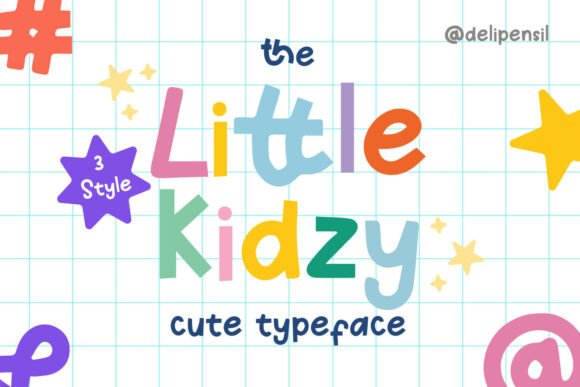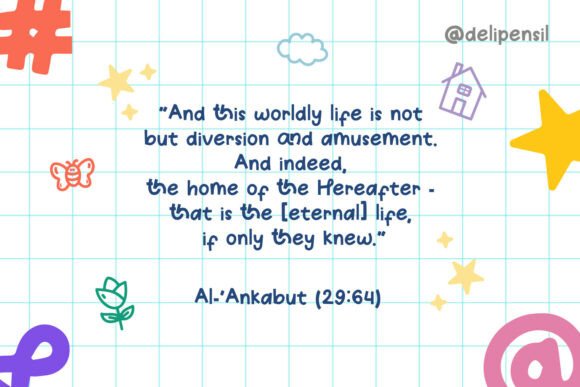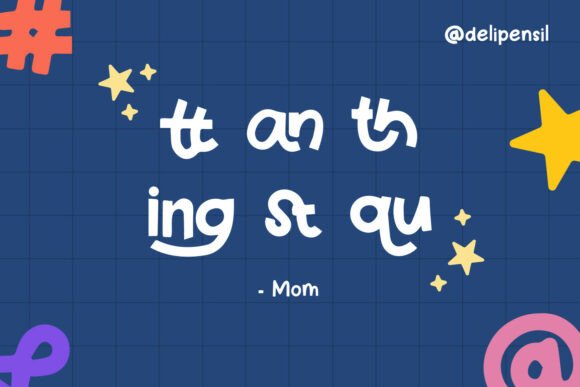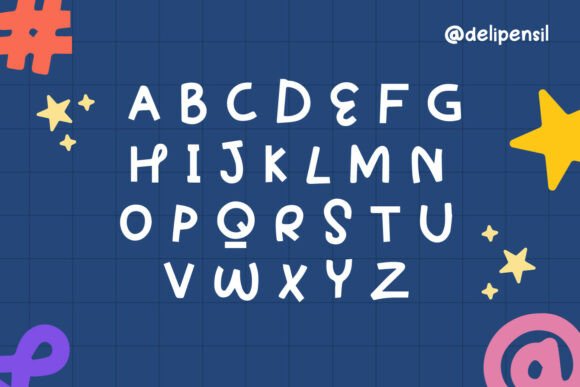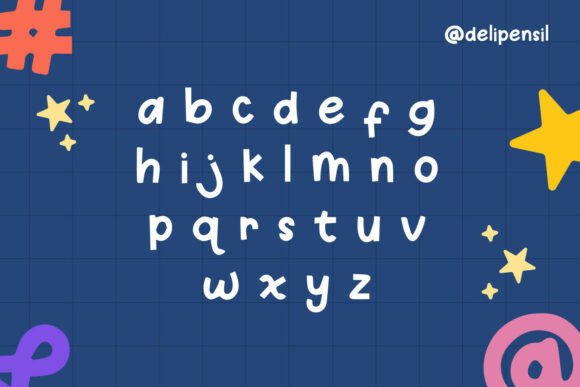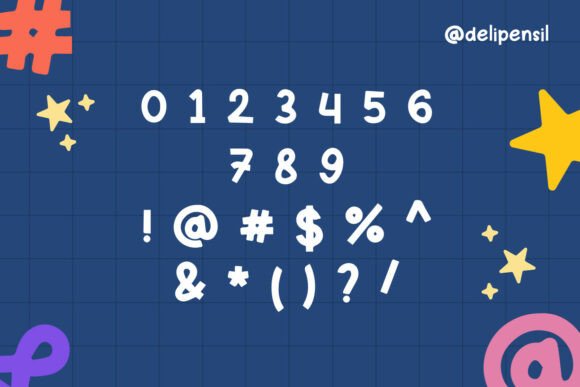
Introduction to Kidzy Font
Have you ever stumbled upon a font that instantly sparks creativity and makes you want to dive into a design project? For me, it was when I discovered the charming Kidzy Font. I was working on a children’s book cover, and I desperately needed a font that would convey the playfulness and innocence of the story. That’s when I found Little Kidzy – a delightful handwriting typeface that brings a touch of fun to any design project.
As a designer, I can attest that finding the right font can make all the difference in bringing a project to life. And that’s exactly what Kidzy Font offers – a high-quality design resource that’s perfect for adding a warm and friendly vibe to your creative works.
Key Features of Kidzy Font
- High-quality design resource ideal for creative projects, offering a unique and playful style.
- Perfect for designers seeking a fun and modern touch for their creative projects, such as logos, graphics, and typography-based designs.
Honest Review: Kidzy Font
As a designer, I’m always on the lookout for high-quality design resources to enhance my creative projects. The Kidzy Font caught my attention with its playful and modern style, making it perfect for a variety of design applications.
Here’s what works well: ✨ The font is incredibly versatile, with a wide range of glyphs and characters to choose from. It’s perfect for creating eye-catching headings, titles, and even logotypes. The transparent background option allows for seamless integration with any design element, giving me the freedom to focus on the creative aspect of my project.
Overall, I’m impressed with the Kidzy Font’s design and functionality. While it’s not perfect, its strengths far outweigh its weaknesses, making it a valuable addition to any designer’s toolkit.
- Perfect for creative projects requiring a modern and playful font